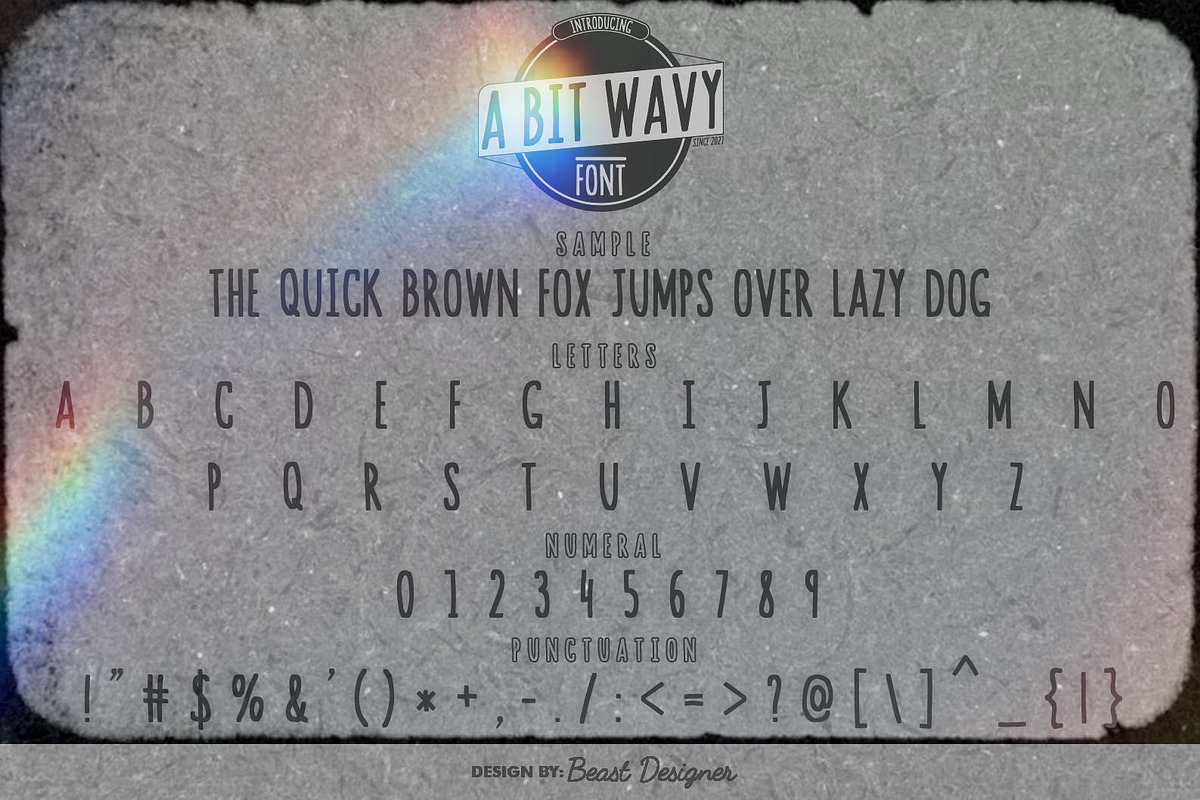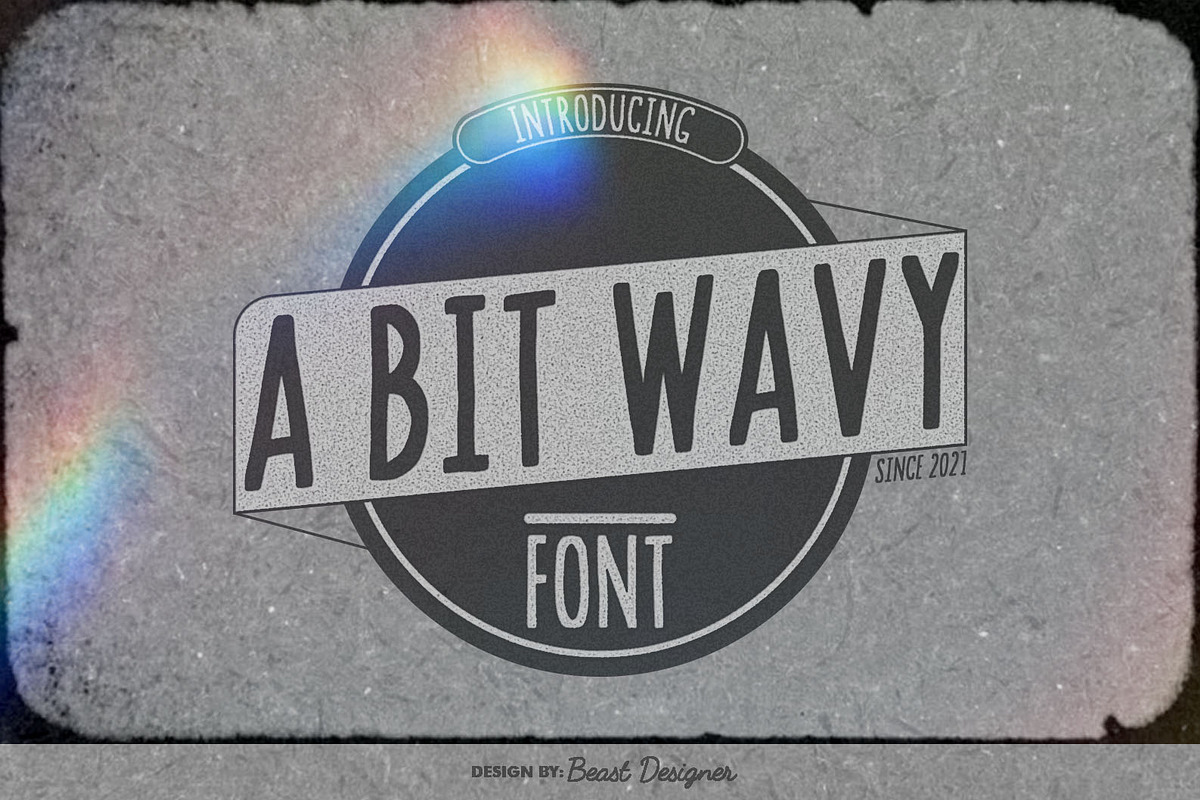
A Bit Wavy
A Bit Wavy is a casual script sans serif font that evokes a vintage aesthetic. Its simple structure and slightly wavy lines give it a playful and friendly personality. This versatile font can be used for a wide range of projects, from branding and headlines to display text and invitations.